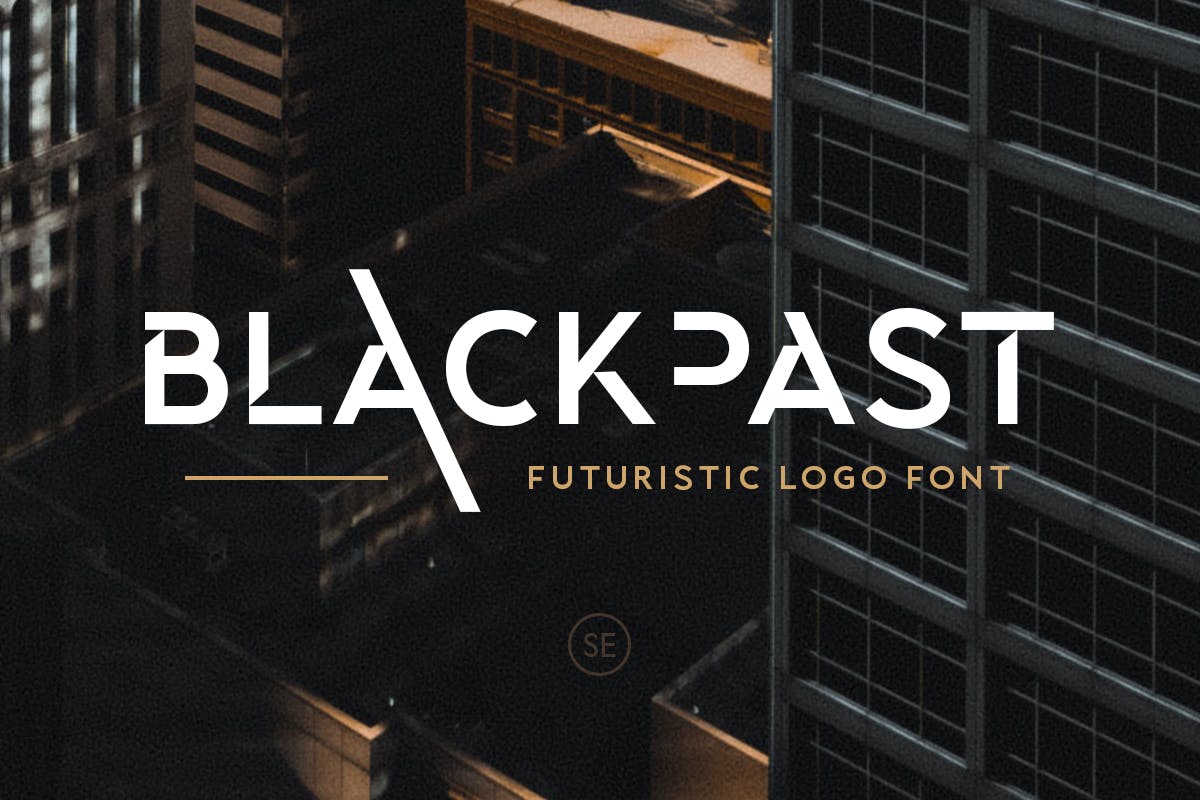
Barden font is a handwritten sans serif font. The black turtleneck of all modern fonts, it’s timeless, clean, and sharp.
Best Best Free Logo Fonts 2021 For Logo Design, Collection of fonts for new fonts 2021. Here're the 40+ best free fonts for 2021 that you can download and use for all your designs.
Merriweather currently has 8 styles: Barden is perfect for logo, badge, insignia, packaging, headline, poster, t. Ta modern times is a 2021 release by tural alisoy and is great for branding as well as body text. Vectr is a free online graphic design tool that you can use to make logos and other digital assets for your brand.
Created with geometric forms, it features graceful turns and stylish lines. Collection of fonts for new fonts 2021. The black turtleneck of all modern fonts, it’s timeless, clean, and sharp. This beautifully elegant and minimal font is completely free for you to use with your personal and commercial projects.
24 best free handwriting fonts 2021 neuronthemes. Hitmo 2.0 ttf sans serif 4 font files. With over 1,700 glyphs, the typeface supports latic, cyrillic, greek, arabic, farsi, and urdu scripts. Top google fonts for logos. 22 Best Fonts for Logo Designs 2021 Design Inspiration.
With over 1,700 glyphs, the typeface supports latic, cyrillic, greek, arabic, farsi, and urdu scripts. The unique design of the characters will make this font fit. This font is ideal for crafting logos for luxury, fashion, and apparel brands. Randrake is a modern logo font that comes with a stylish script design. 100_greatest_free_fonts_for_2021 Graphic Design Junction.
The unique design of the characters will make this font fit. It includes 12 different styles of fonts featuring more than 2700 glyphs. Trendy web color palettes and material design color schemes & tools. Light, regular, bold, black, light. 25+ Best Fonts for Logos 2021 Theme Junkie.
Merriweather currently has 8 styles: Created with geometric forms, it features graceful turns and stylish lines. Being regarded as one of the most modern fonts for 2021, anko made it to the top for numerous reasons. Valky is an exciting vintage serif font that has modern features. 108 Best Free Logo Fonts for Your 2021 Brand Design Projects.
Woman of the apocalypse ttf horror. Stone board free font 3. Best free fonts in 2022. You get four weights, several alternative glyphs, and ornaments too. 8 Top Font Trends for 2021.
The font is great for big signs, titles, labels, headlines, and various online graphic design formats. This font is perfect for elegant logo design, monogram, packaging designs and so much more. Ygro sans free font 13. Valky is an exciting vintage serif font that has modern features. 25+ Best Fonts for Logos 2021 Theme Junkie.
Mango salsa will be the perfect for for branding, product packaging, cards, and more. Added to design & illustration. This font is perfect for elegant logo design, monogram, packaging designs and so much more. Michalina is a beautiful free font that comes with a stylish calligraphy lettering design. 108 Best Free Logo Fonts for Your 2021 Brand Design Projects.
Poiret is a special typeface with pure light forms that are smooth and basic. This font is ideal for crafting logos for luxury, fashion, and apparel brands. Randrake is a modern logo font that comes with a stylish script design. Like simplicity, color, typography and imagination. 108 Best Free Logo Fonts for Your 2021 Brand Design Projects.
Stone board free font 3. If you look to the trends for the best creative free logo design, you can feel the common trends in it! Here are 24 best fonts that you can use in 2021: Top google fonts for logos. 8 Top Font Trends for 2021 Font design logo, 2020 lettering, Serif.
Here is a list of fonts released in the last year. Instant downloads for 650 free logo fonts. Here are 24 best fonts that you can use in 2021: Script fonts / handwriting fonts barcelony font pairs: The 50 Best Fonts for Creating Stunning Logos in 2021 Business.
Invitation, logo or other creative project. Beast & baron free font 7. 24 of the best cursive fonts in 2022 for your logo and brand looka 30 beautiful modern script (typefaces 2022) top 20 that will be popular with designers 2021 free handwriting neuronthemes. It was designed by cosimo lorenzo pancini, francesco canovaro and andrea tartarelli for zetafonts italian type foundry. 108 Best Free Logo Fonts for Your 2021 Brand Design Projects.
You get four weights, several alternative glyphs, and ornaments too. This beautifully elegant and minimal font is completely free for you to use with your personal and commercial projects. Best 3d fonts 2021 (free & premium) best sans serif fonts 2021; Trendy web color palettes and material design color schemes & tools.